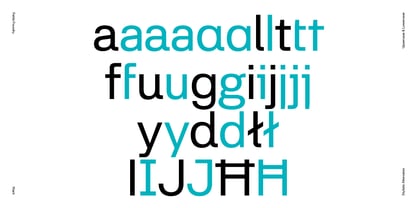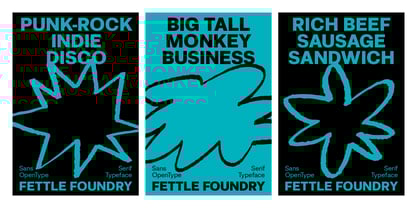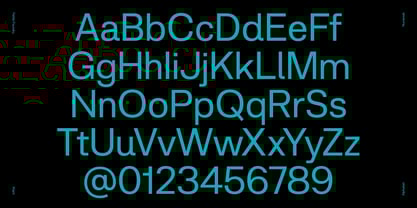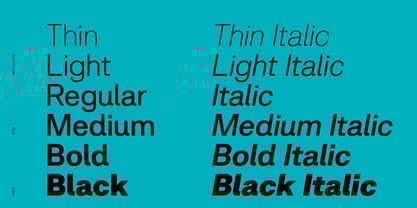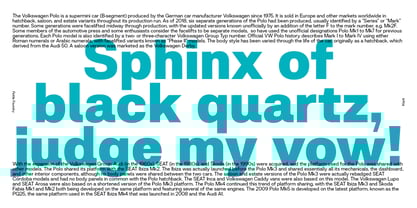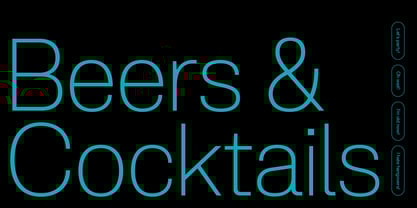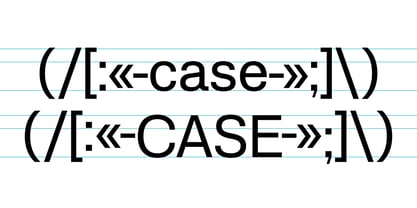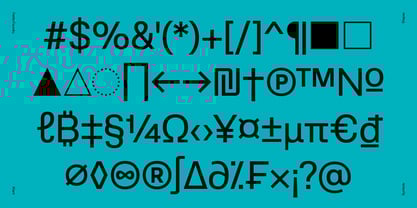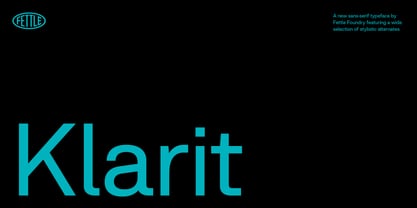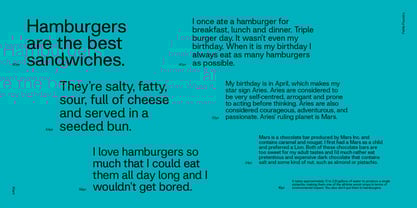
Klarit
by Fettle Foundry
The Klarit Font Family was designed by Thom Milson and published by Fettle Foundry. Klarit contains 12 styles and family package options.
Klarit is a legible sans-serif designed to maximise accessibility across print and digital applications. Featuring a large selection of alternates across both uppercase and lowercase character sets, Klarit provides users with powerful customisation options to suit their needs. Based on an extended Latin-S character set, Klaritt supports over 380 Latin-based languages.
About Fettle Foundry
Fettle Foundry is a project by designer Thom Milson. We are an independent type design studio that specialises in creating unique, commercial fonts and commissioned typefaces for a range of clients in a variety of sectors. We have a particular focus on modernist and retro inspired typefaces that are practical, yet full of surprising details. Fettle Foundry was founded in 2020.